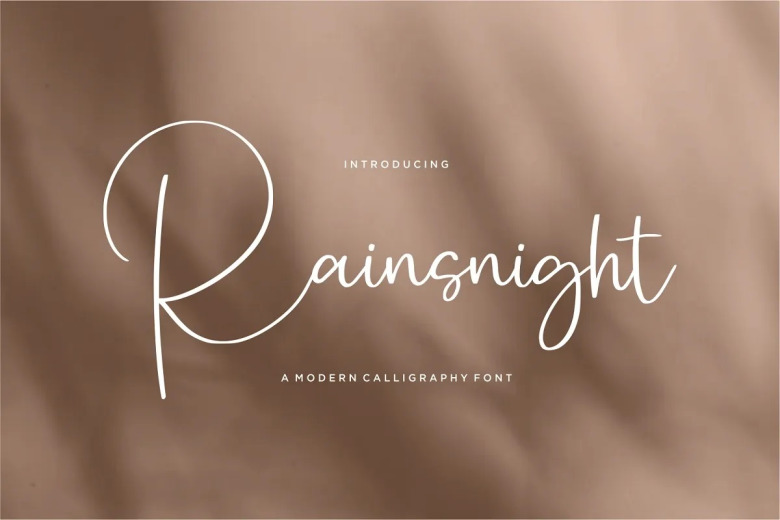
Rainsnight Font
Rainsnight Modern Handwritten Font This is comfy decent to be used for logotype, header or sneaker script font. It also create a perfect published quote fonts.
Rainsnight Handwritten Script Font